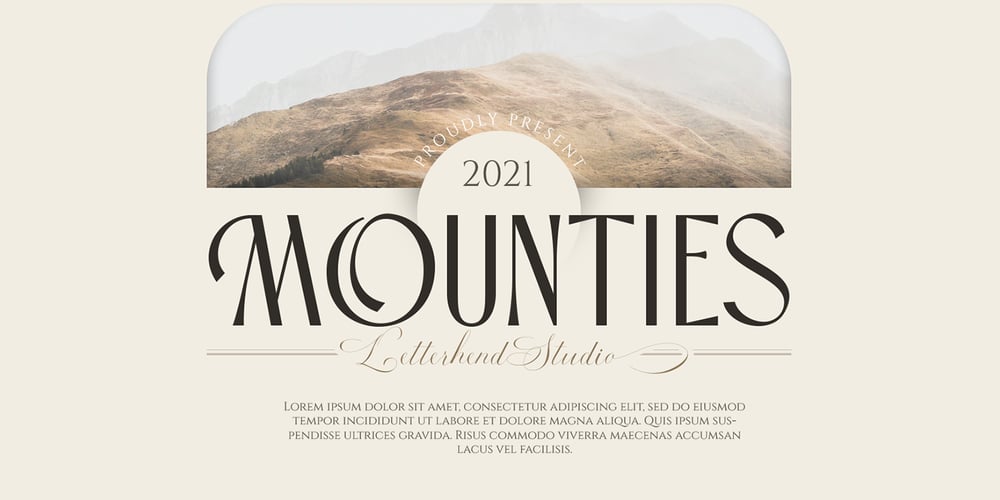
Mounties
Mounties font
Mounties Font Family was designed by Hendry Juanda and published by Letterhend. Mounties contains 1 styles and family package options. Introducing, Mounties, a Display Sans Serif Font. This font has neat and sleek letterform, make it looks great to be used for modern and minimalistic design theme. The stylistic alternates and ligatures make this font event more unique and stands from the crowd. This font perfectly made to be applied especially in logo, and the other various formal forms such as invitations, labels, logos, magazines, books, greeting / wedding cards, packaging, fashion, make up, stationery, novels, labels or any type of advertising purpose.Features : uppercase & lowercase numbers and punctuation multilingual alternates & ligatures PUA encoded We highly recommend using a program that supports OpenType features and Glyphs panels like many of Adobe apps and Corel Draw, so you can see and access all Glyph variations.